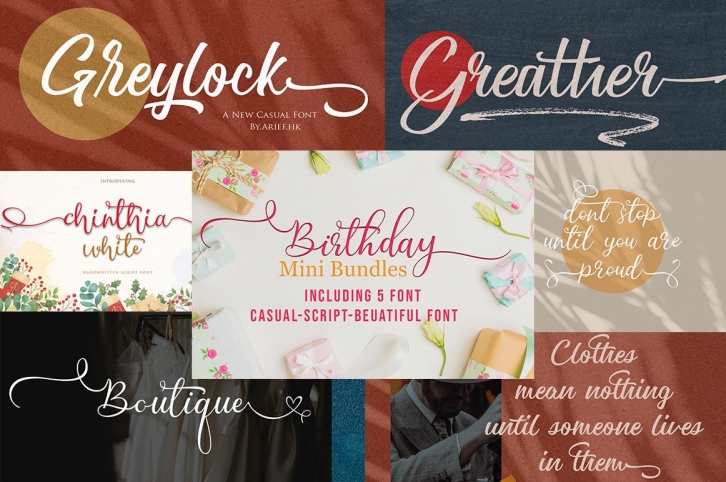
Birthday Special Bundle is a great font that was designed by dotHK. Imagine the amount of combinations you can create using this font! The archive is 12.70 MB and it was released on February 10, 2021. Birthday Special Bundle looks beautiful on wedding invitations, greeting cards, logos, posters, labels, t-shirt designs, logos, business cards and is perfect for use in ink or watercolor works, fashion, magazines, packaging and food menus, children's books and more!